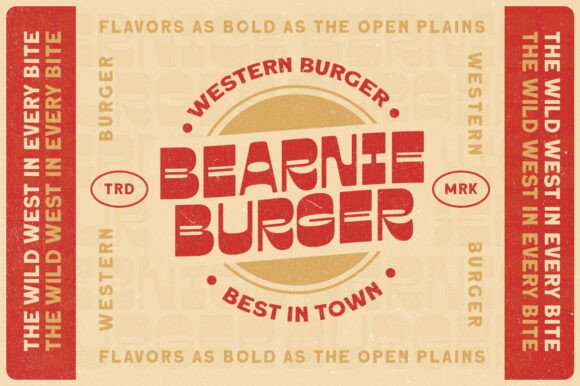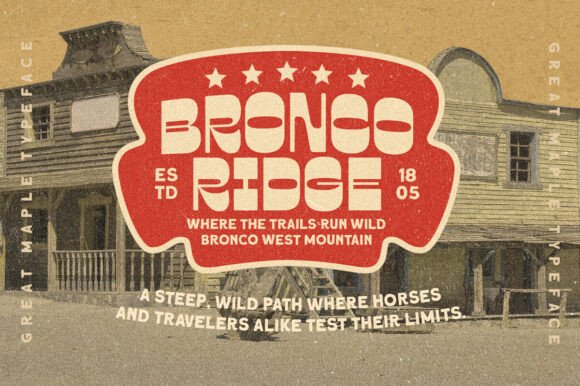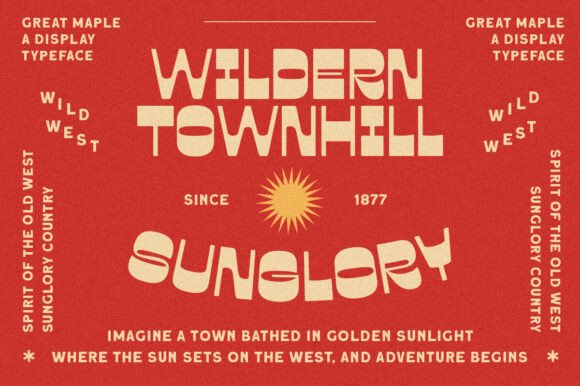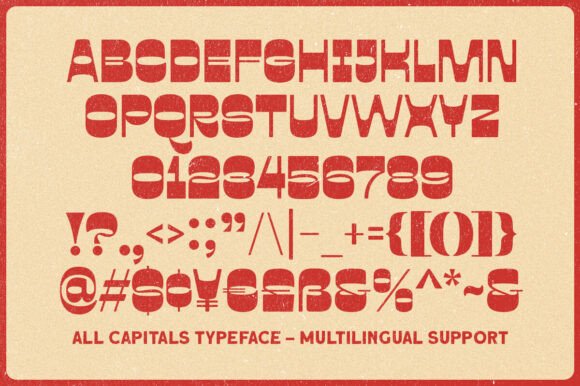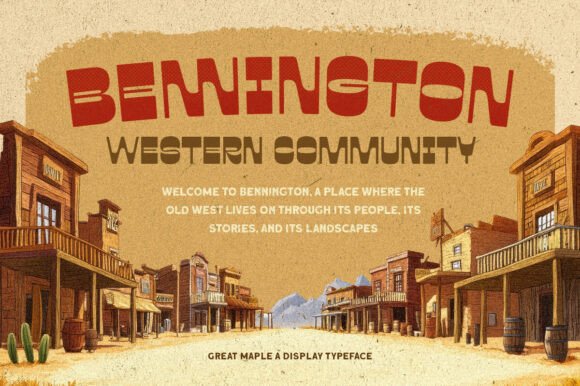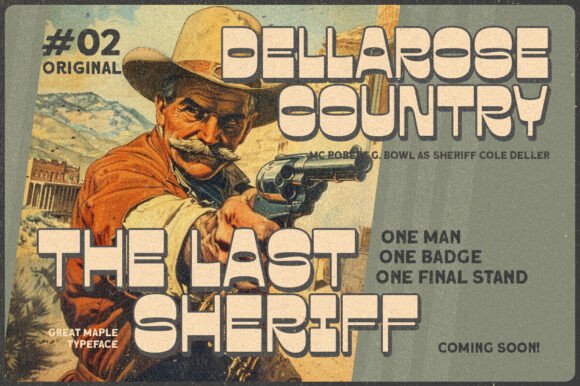
Introduction to Great Maple Font
Have you ever found yourself pouring over old photographs, mesmerized by the worn textures and faded colors of a bygone era? For designers, this nostalgic fascination can be a powerful catalyst for creative projects. The right font can transport your audience to a different time and place, evoking emotions and sparking imagination. And when it comes to fonts that capture the essence of a vintage vibe, few are as compelling as the Great Maple Font.
This bold and playful display typeface is crafted entirely in uppercase letters, boasting a rustic and vintage aesthetic that’s perfect for designs with a retro or handcrafted theme. Whether you’re working on a free download project or a high-quality design resource, Great Maple Font is a valuable asset for any creative endeavor.
Key Features of Great Maple Font
- Features a unique, hand-drawn style with intricate details and texture
- Perfect for use in logos, branding, and other design elements
Honest Review: Great Maple Font
I recently had the chance to work with the Great Maple Font, and I must say it’s been a game-changer for my design projects. This high-quality font is a fantastic addition to any design resource, and I’m excited to share my honest review with you.
- ✨ Beautifully designed lettering with a unique maple leaf-inspired aesthetic
- ⚠️ Some of the letters may not display correctly in smaller font sizes or at very large sizes
Overall, I’m thoroughly impressed with the Great Maple Font. It’s a fantastic design resource that’s perfect for creative projects, from branding and marketing materials to web design and print collateral. If you’re looking for a high-quality font that’s both stylish and functional, I highly recommend giving the Great Maple Font a try.
For the most out of the Great Maple Font, use it for headings and titles in your design. You can also use it for quotes or other text elements where you want to add a touch of elegance. Some common use cases include creating invitations, posters, and social media graphics.